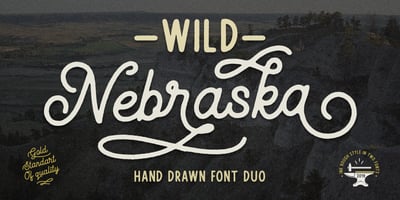
Wild Nebraska
Wild Nebraska font
Wild Nebraska Font Family was designed by Pavel Larin and published by Larin Type Co. Wild Nebraska contains 2 styles and family package options. Inspired by wildlife, endless plains, breathtaking mountains and a vintage style, I created a duet of fonts in a rough style. Wild Nebraska is an authentic and brave font duo with many alternates, ligatures and swathes that give multiple options for creating your project and help you to be exclusive and emphasize your personality. All characters of this font PUA encoded.